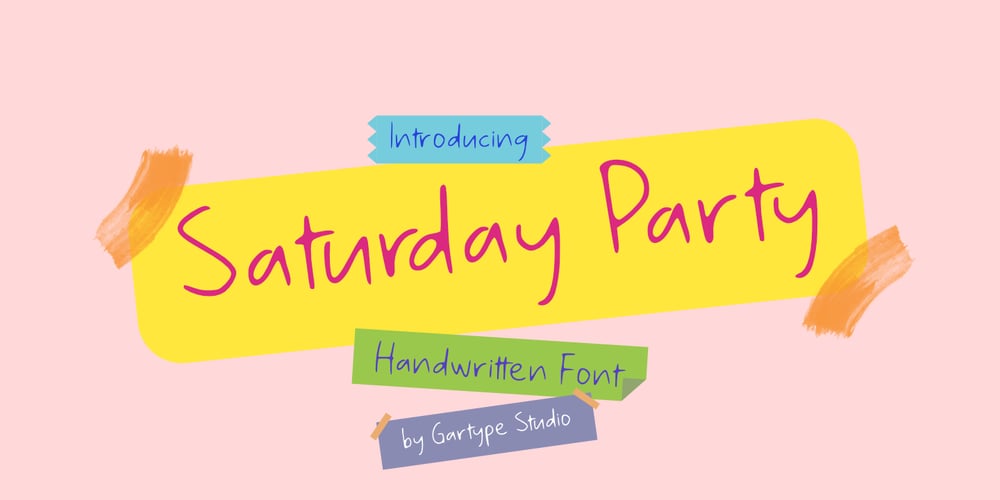
Saturday Party GT Font Family was designed by Gumilang Anggara Ruslan and published by Gartype Studio. Saturday Party GT contains 2 styles and family package options. Inspired by thin and condensed handwriting style, we present to you Saturday Party, a handwritten font with thin and condensed characters that was comes with alternates and multilingual glyphs to help people around world with that unique accent with this font.Saturday Party is very suitable like as sticky notes, handwritten project, signatures, and more.That way easily change the glyphs to make more unique glyphs.